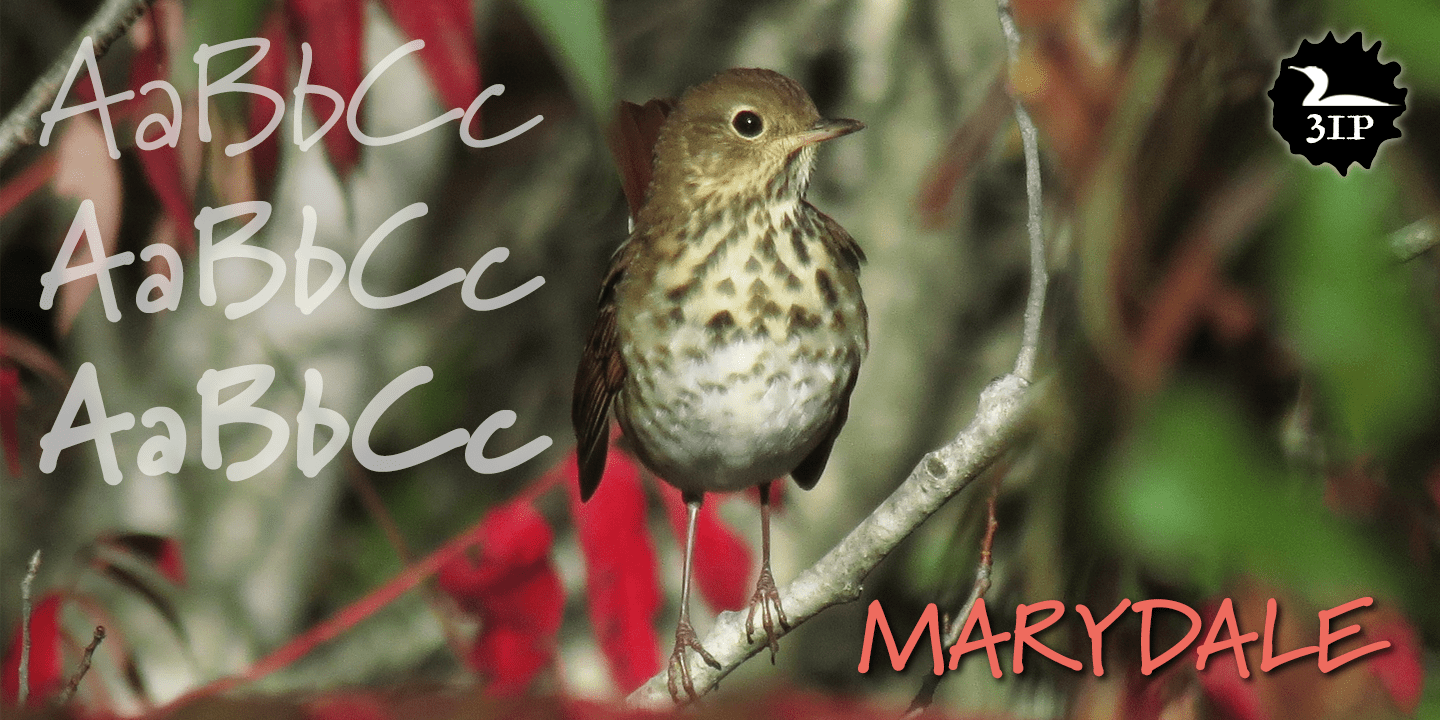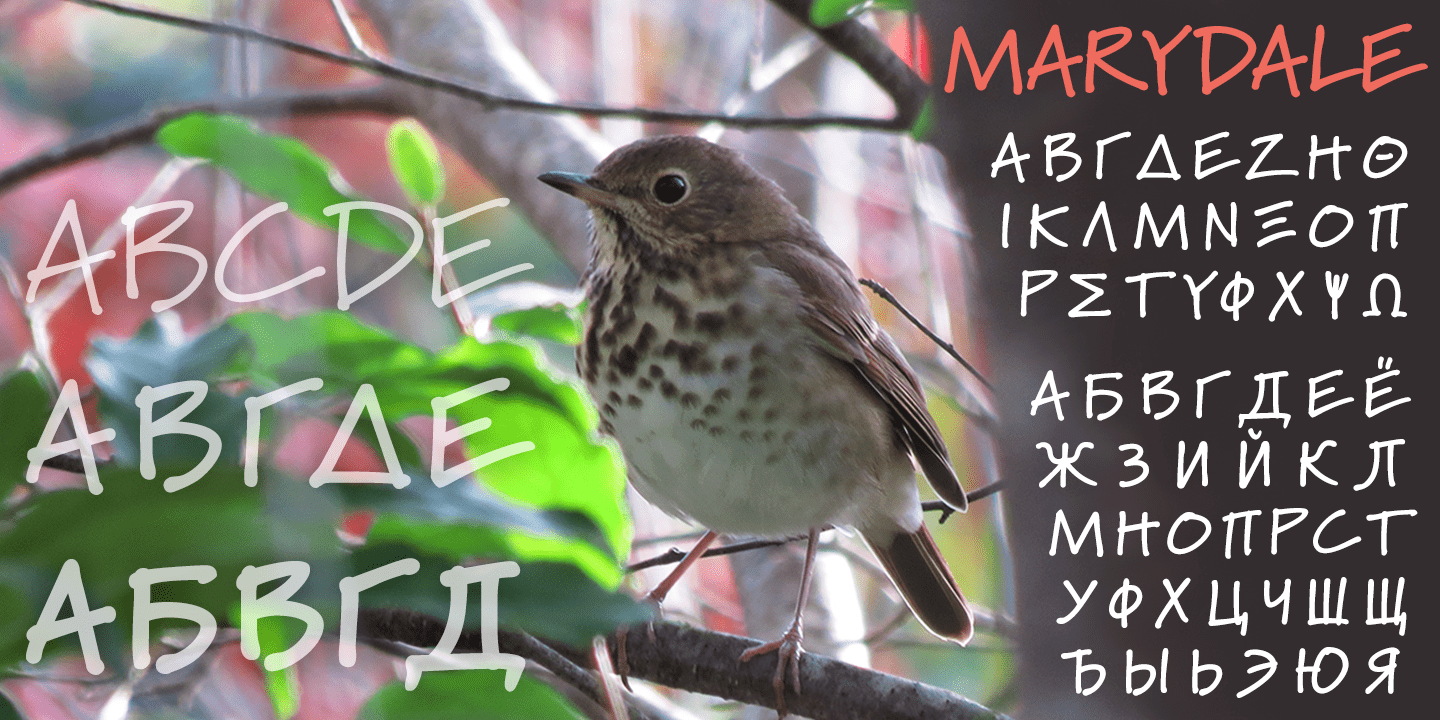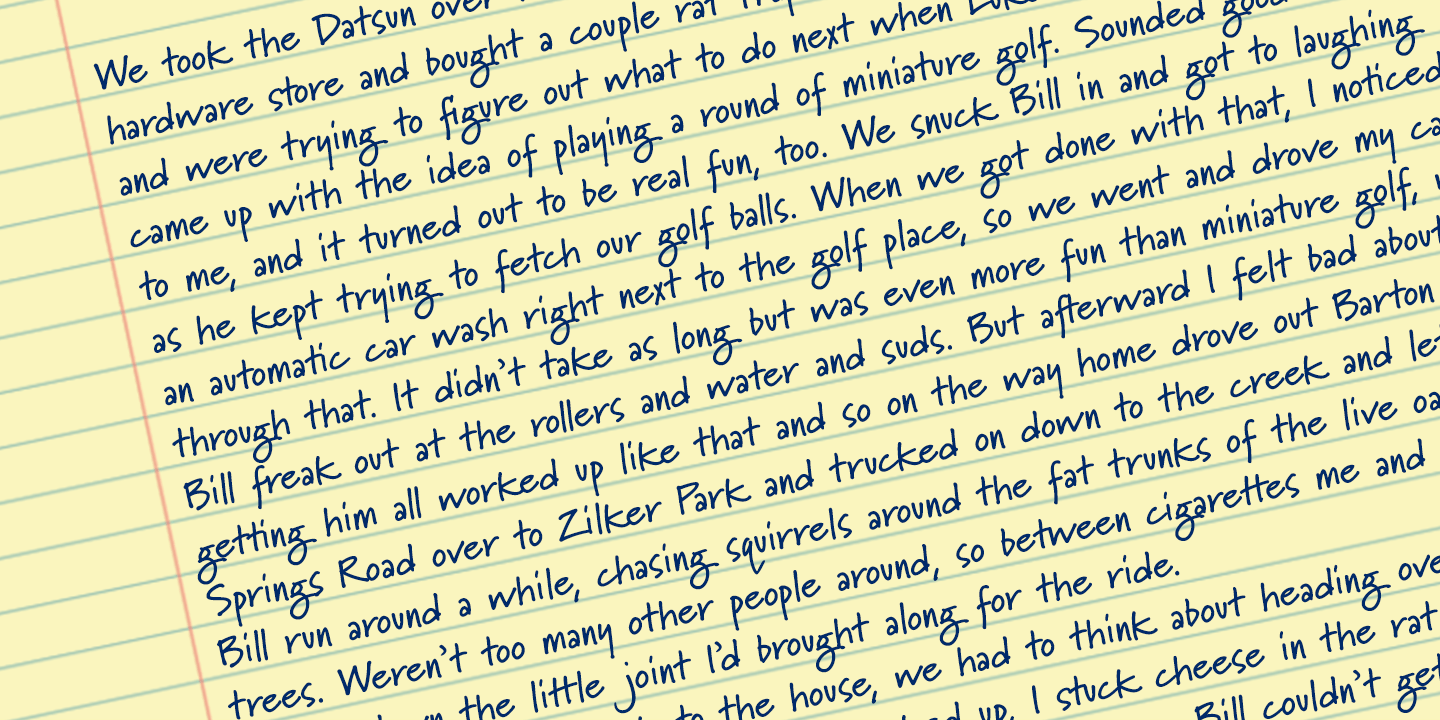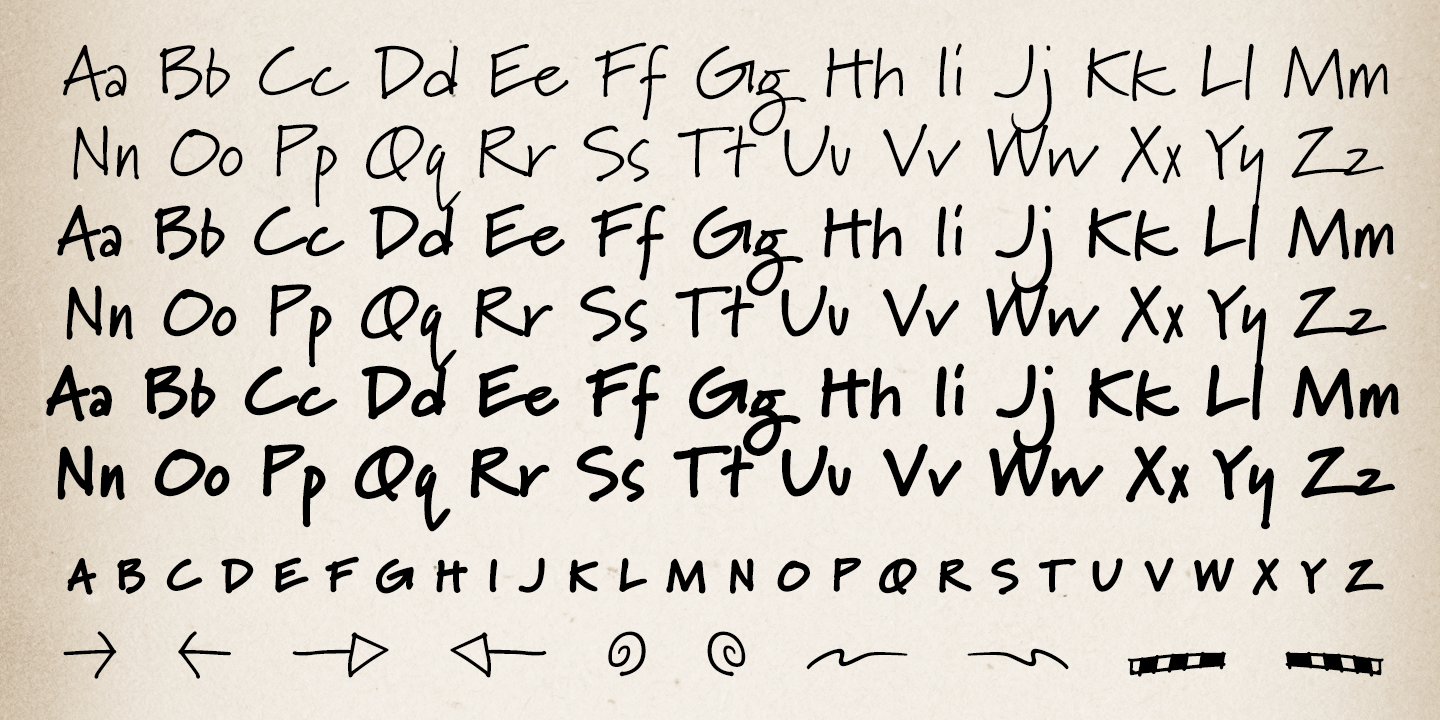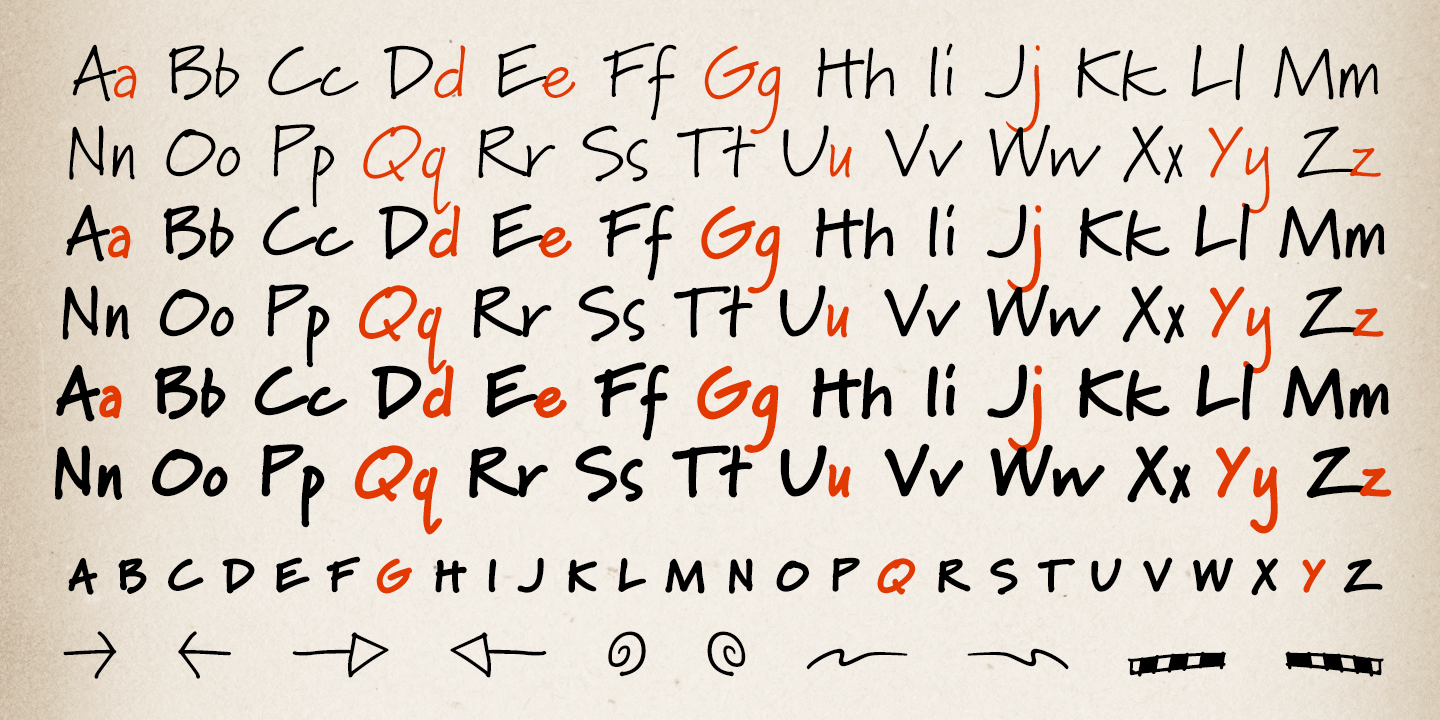
Marydale
While helping produce a trade magazine years ago, I admired the hand-lettering of the art director -- a woman named Marydale -- and suggested she let me model a font after her penmanship. She agreed and drew out the alphabet, and I launched an old copy of Fontographer and (to shorten a long story) ended up developing my very first digital typeface.
Which has since, astonishingly, become famous worldwide. So now the real Marydale gets the mixed blessing of seeing her handwriting (and name) plastered all over the planet.
Full release has regular, bold, and black weights.